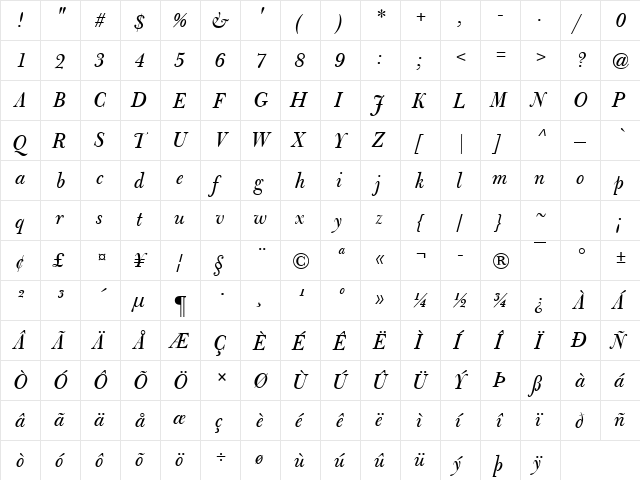
Bulmer MT Regular Display Italic
Design Context for Bulmer MT Regular Display Typeface
Bulmer MT Regular Display brings ornamental detail and strong personality to headlines and identities, where visual impact matters more than quiet functionality. The slanted form adds forward momentum and visual energy.
Font Pairing: Pair with a clean neutral sans-serif for body copy to let Bulmer MT Regular Display's character lead without overwhelming the composition.
Pro Tip: Use Bulmer MT Regular Display exclusively at display sizes — it was designed to be seen, not read at length. Let a neutral companion handle body copy.